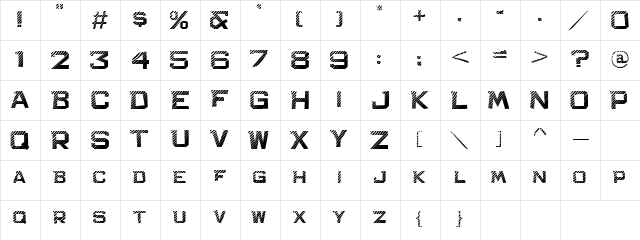
Bachelor Pad Wood JL Regular
| Foundry | Jeff's Fonts & Dingbats |
| Designer | Jeffrey N. Levine |
Design Context for Bachelor Pad Wood JL Typeface
Bachelor Pad Wood JL taps into classic Western woodtype traditions — bold, characterful, and impossible to ignore.
A natural fit for craft spirits, ranch branding, rodeo events, and Americana-inspired design work.
Font Pairing: Combine Bachelor Pad Wood JL with a simple slab or neutral sans — period-accurate companions reinforce the vintage feel without competing for attention.
Pro Tip: Use Bachelor Pad Wood JL for short, impactful bursts of text — it shines in poster headlines and product names rather than extended copy.